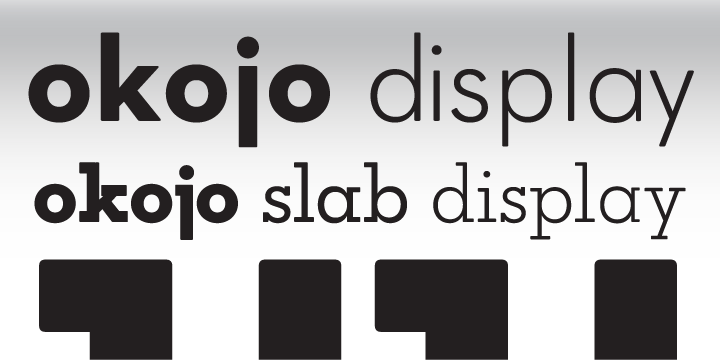
Okojo Display and Okojo Slab Display are geometric sans and slab serif typefaces influenced by the type designs of Paul Renner and Herb Lubalin. The typefaces are based on our Okojo and Okojo Slab family of typefaces, yet have enlarged x-heights and rounded corners for display work. (This being said, they look great when used in text settings, as well! A little style never hurt anyone!) The sans serif version has a European sensibility while the slab serif has more of a homespun American feel. Both work well on-screen as webfonts and in print as book type. Each is hinted with accuracy and kerned with precision. More…